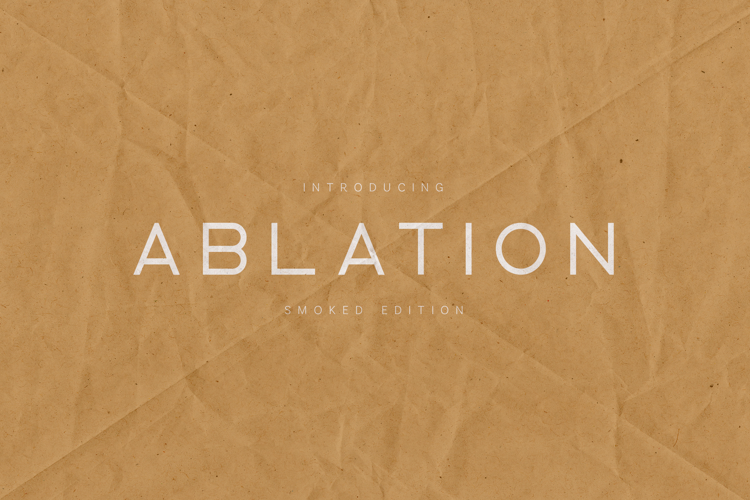
Ablation Smoked Sans Serif Font
Ablation – Smoked Edition is a modern sans serif font with a subtle textured finish inspired by erosion, smoke, and organic wear. Featuring clean geometric letterforms softened by a distressed surface, this typeface balances precision with atmosphere, creating a calm yet expressive visual tone.
Designed for contemporary branding and editorial use, Ablation is ideal for posters, headlines, packaging, magazines, lifestyle branding, quotes, websites, and minimalist graphic design projects. Its understated texture adds depth and tactility without overpowering readability, making it versatile across both digital and print applications.
Ablation – Smoked Edition is made for designers who want modern typography with character—clean, quiet, and shaped by texture.